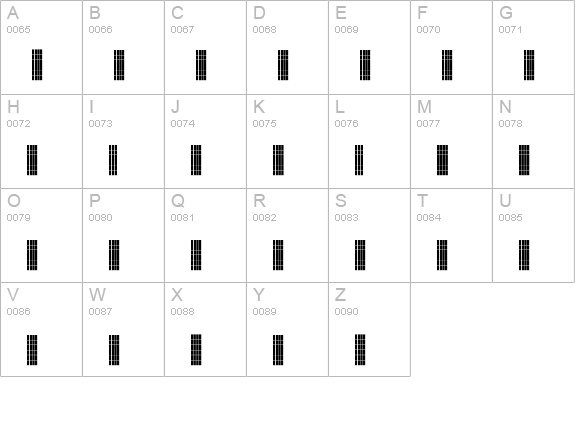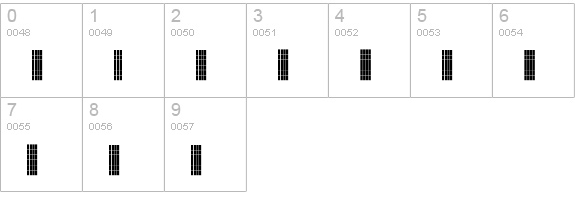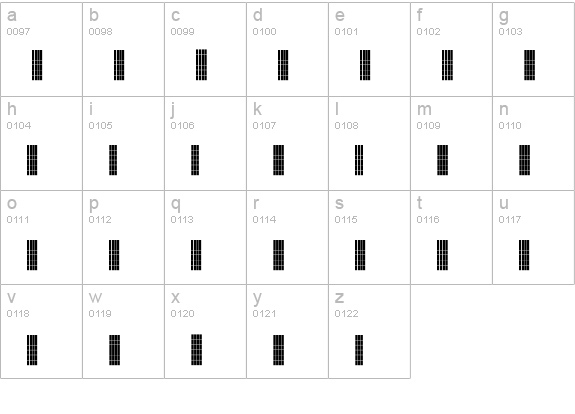
Luggagetag-Grid Font Details
Luggagetag-Grid font is a modern and stylish typeface designed for adding a touch of sophistication to your designs. With its unique grid-like structure, this font is perfect for creating eye-catching headings, logos, and signage. The clean lines and sharp edges of Luggagetag-Grid font make it stand out in both digital and print media. Best of all, Luggagetag-Grid font is available for free download at FontsMarket.com. This means you can easily access this versatile font and use it in your personal and commercial projects without any cost. Don't miss out on the opportunity to enhance your designs with this exceptional font - download Luggagetag-Grid today and take your creations to the next level.